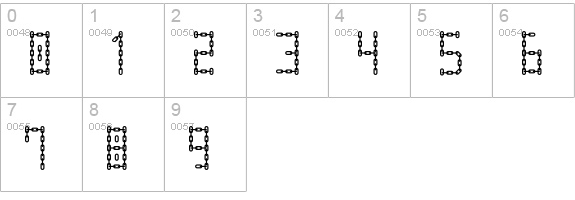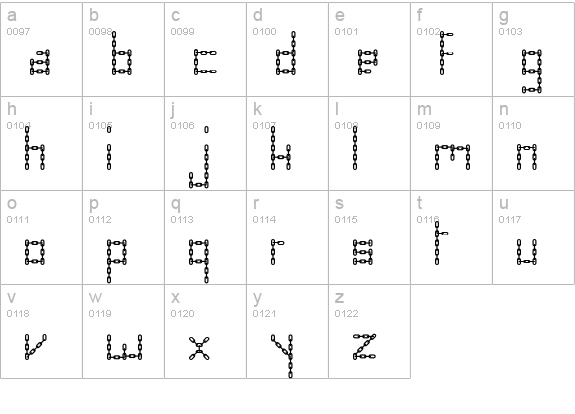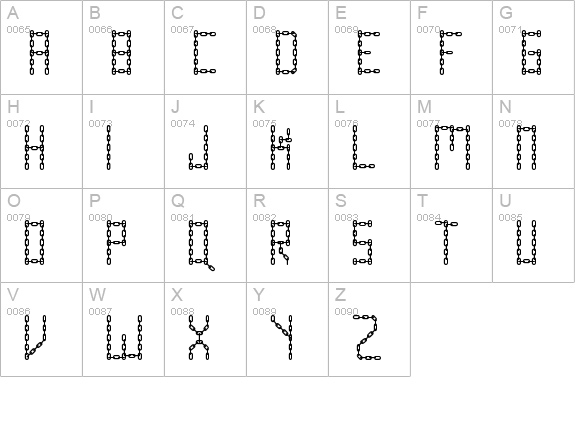
Chain Letter Font Details
The Chain Letter font is a stylish and modern typeface that exudes creativity and innovation. Its sleek and elegant design makes it perfect for a wide range of projects, from branding to editorial design. With its clean lines and unique letterforms, Chain Letter is sure to make a statement and captivate your audience. What sets Chain Letter apart is not only its striking appearance but also its accessibility. This font is freely available to download at FontsMarket.com, allowing designers and creatives to easily incorporate it into their work without any restrictions. Whether you're looking to add a touch of sophistication to your next project or simply want to experiment with a new font style, Chain Letter is the perfect choice. Download it today and unleash your creativity with this versatile and eye-catching typeface.